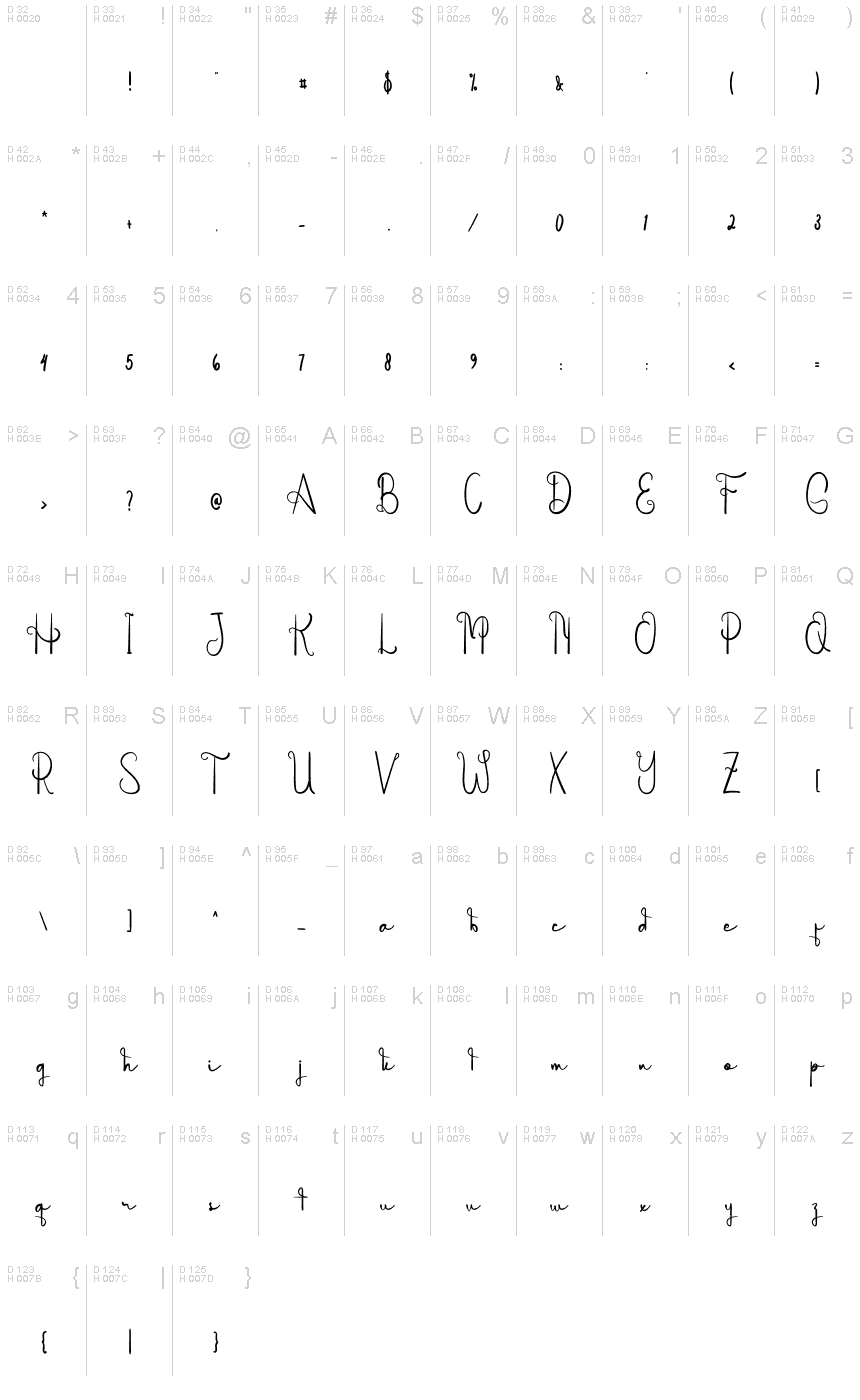
Algeria
Algeria is a thin and cursive script font designed by Erik Studio. This font is neatly crafted and highly detailed. Whatever the topic, this font will be a wonderful asset to your font library, as it has the potential to enhance any creation.